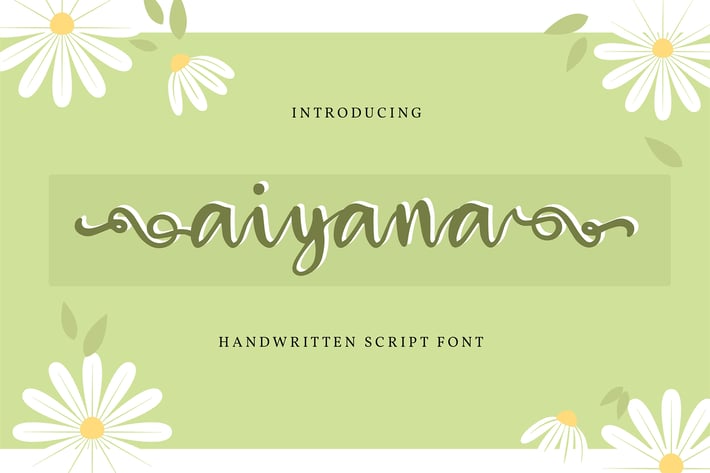
Aiyana | Handwritten Script Font
Aiyana | Handwritten Script Font with a calligraphy style, So beautiful on invitation like greeting cards, branding materials, business cards, quotes, posters, and more!